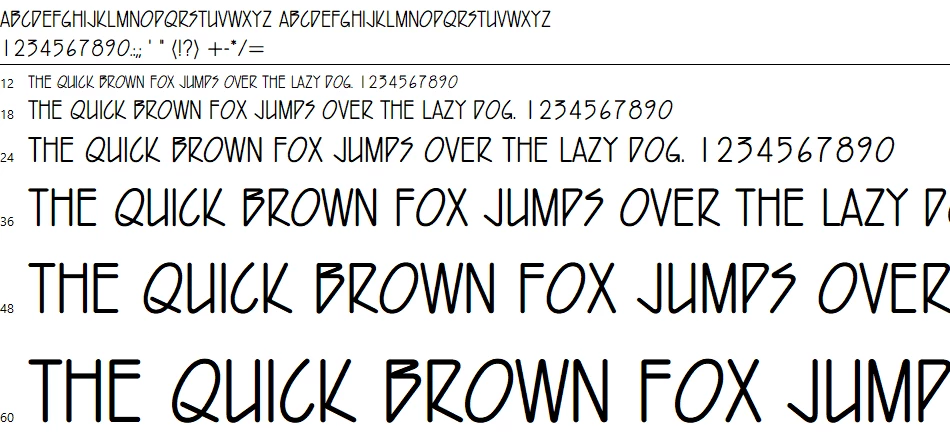
Hawaii Font View
| Name | Hawaii Font |
| Style | Handwritten Script |
| Author | OPTIFONT |
What type of font is Hawaii?
Ans: Hawaii is a Handwritten Script font.